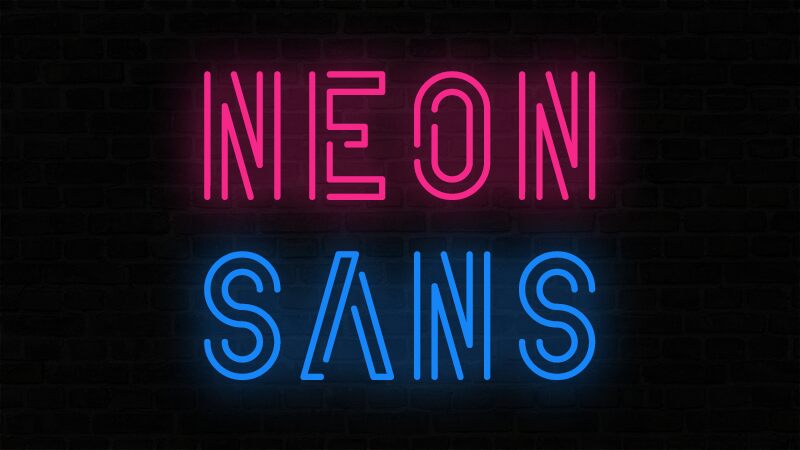
Neon Sans font is a work by GGBotNet to cater to the futuristic, geometric, and retro lovers. The display font has clean lines that when combined with its simplicity directly speaks of minimalism. Its letters are carefully drawn and feature condensed width and retro style which make the characters quite visually pleasing.